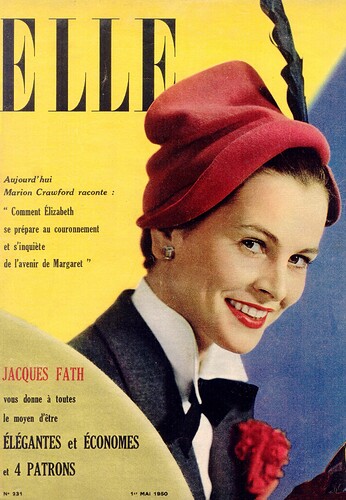
Any idea what typeface was used for Elle Magazine?
It’s a compressed font in the Didone genre. Onyx (1937) is close; Arsis (1939) is also close. Modern 20 and De Vinne (not ornamental) have the longer, thin serifs but are not condensed. This was printed in 1950, so it’s long before digital type and even photo type.
I found a vector shape version of the original. I turned off everything except the “E” and did a side by side with the Onyx and Arsis. You’re right in that they’re both pretty close. Given the age of the original (1945), it may very well be custom.